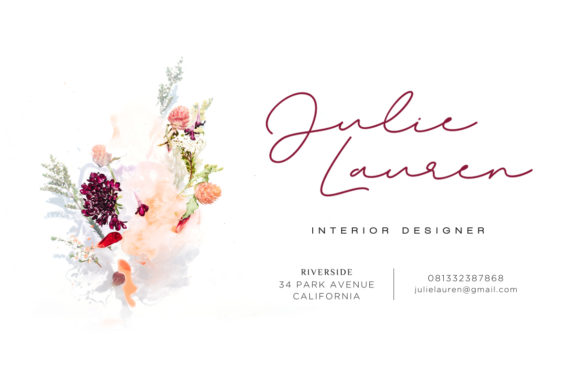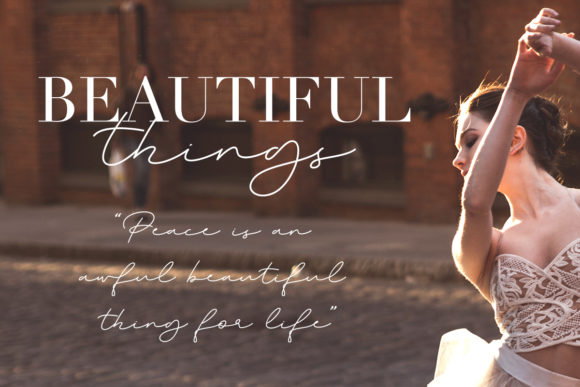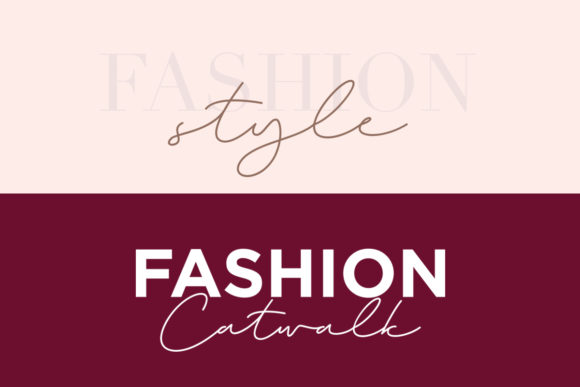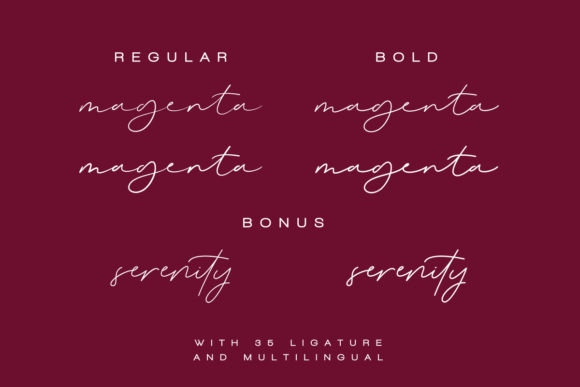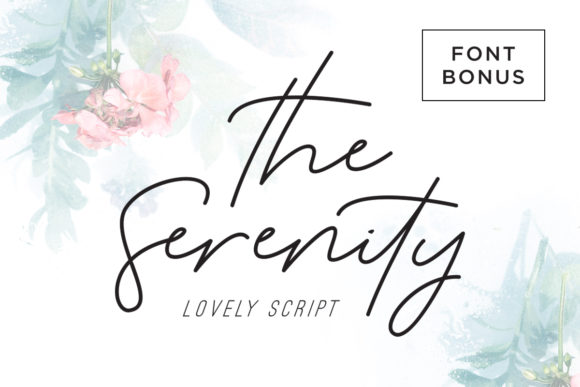
Magenta Duo Font
About Magenta Duo Font
The Magenta is a luxurious and carefree signature script font that was lovingly created by hand. It has an elegant and feminine style which can be used for every design that needs to look upscale and chic. Included in this download is also the font Serenity, a beautiful font which will add a striking, yet elegant look to your designs.